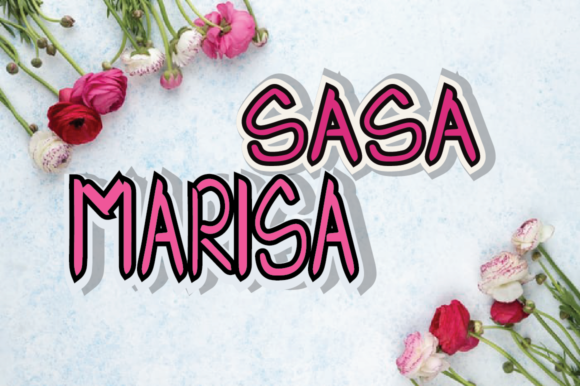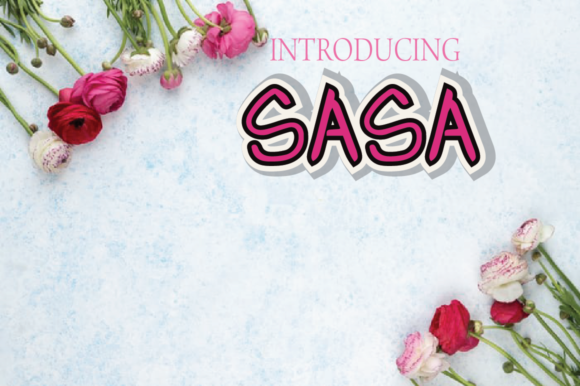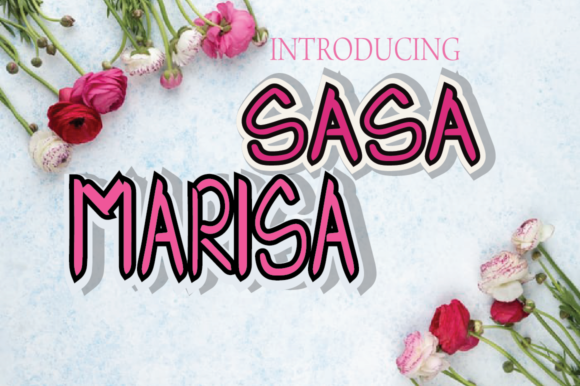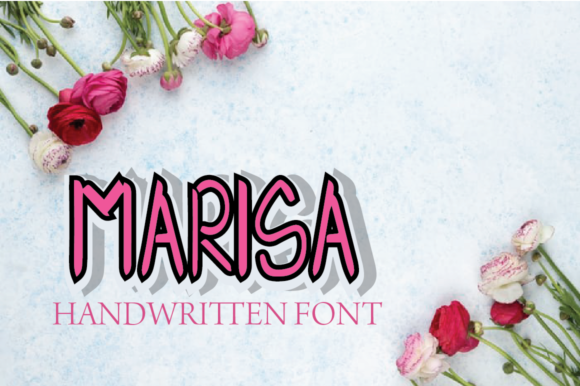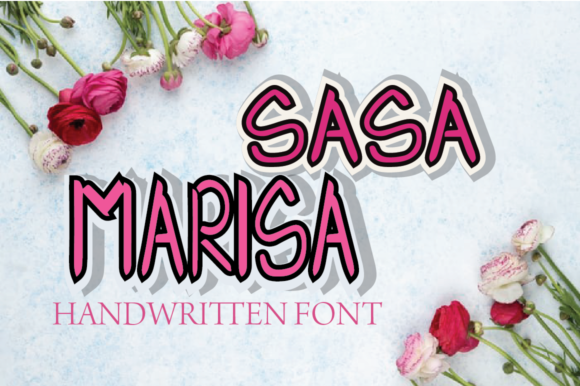
About Sasa Marrissa Font
Sasa Marissa is a sweet handwritten font. It looks fun, quirky, and natural, and it will make your items seem more authentic and inviting!